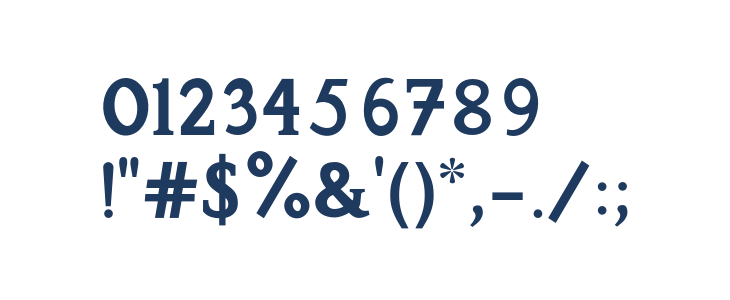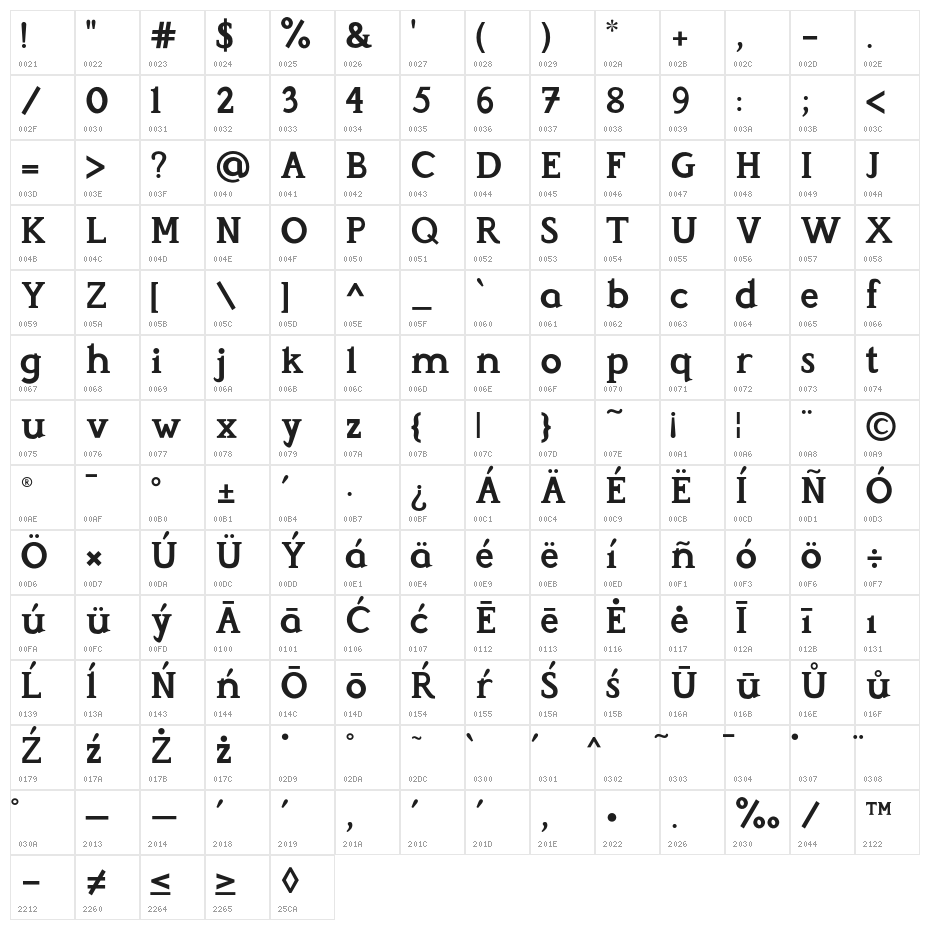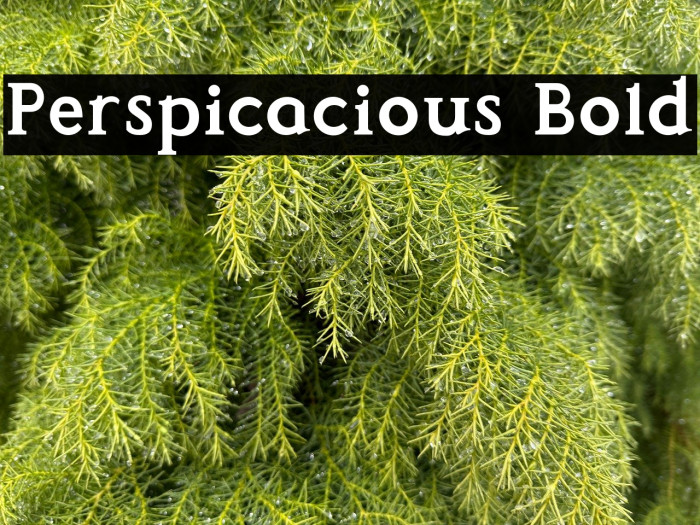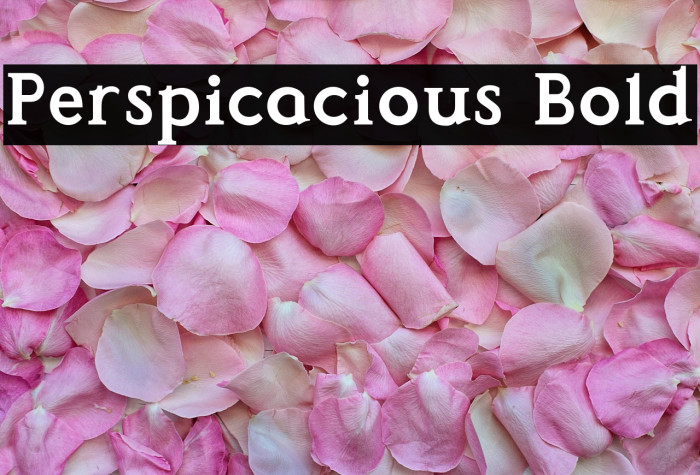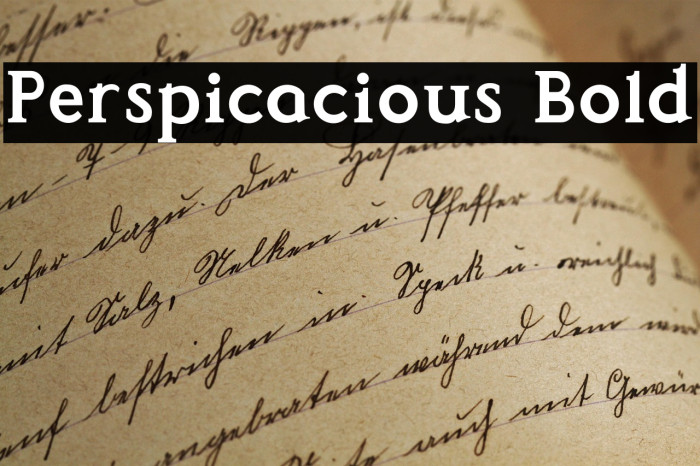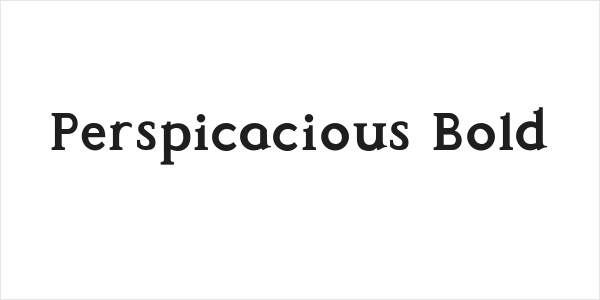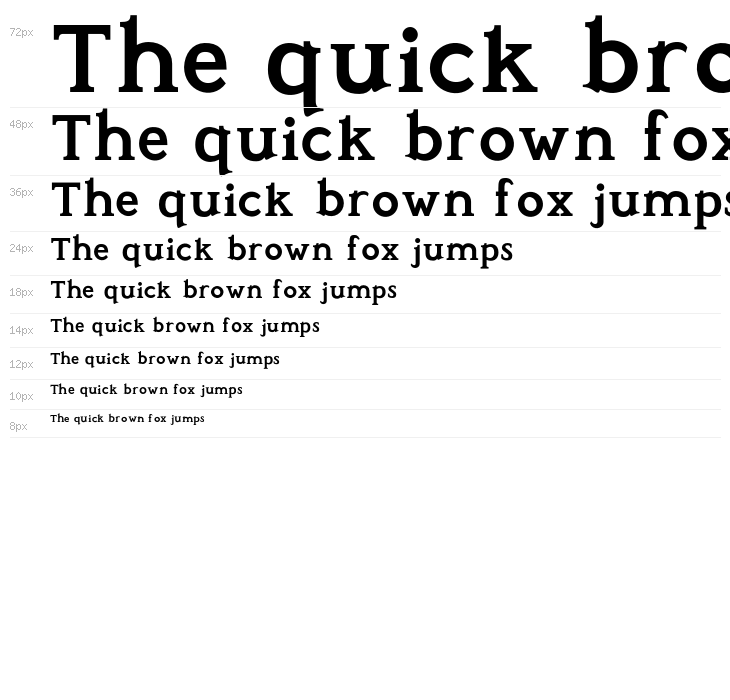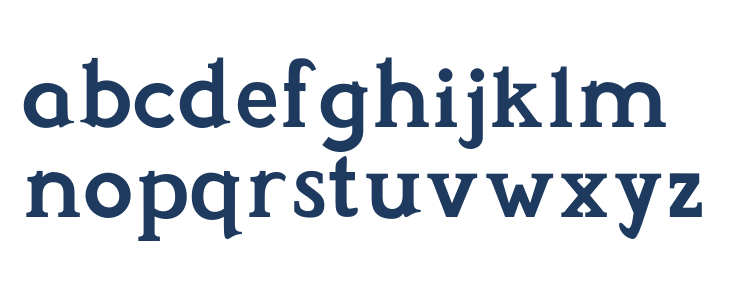
Perspicacious Bold Font
Perspicacious Bold Description
This font features a bold and commanding presence with its strong serif design. The characters are well-defined with a classic elegance that is both timeless and versatile. The uppercase letters are robust and authoritative, while the lowercase letters maintain a harmonious balance with slightly rounded edges. The numerals are clear and legible, making them suitable for a variety of applications. Special characters are distinct and integrate seamlessly with the overall style. This font's boldness and clarity make it ideal for impactful headlines and prominent displays.
| Proposed Projects | Ideal for book covers, editorial headlines, branding materials, and formal invitations. |